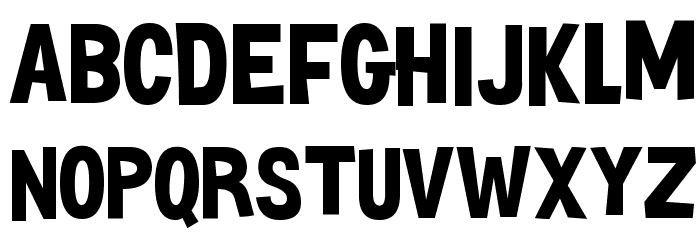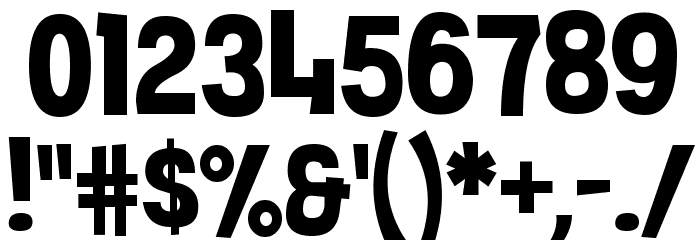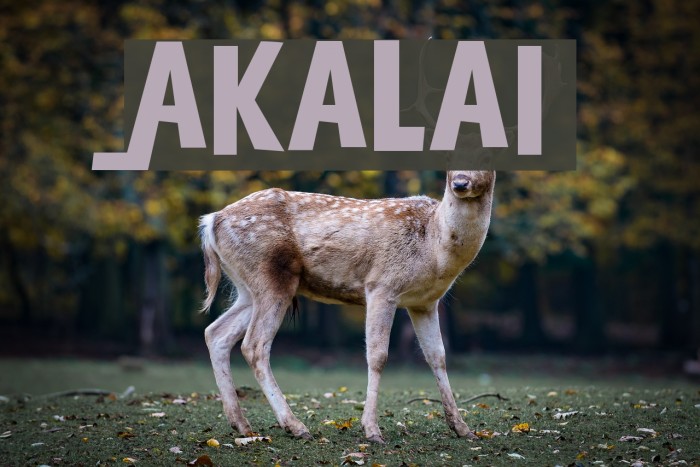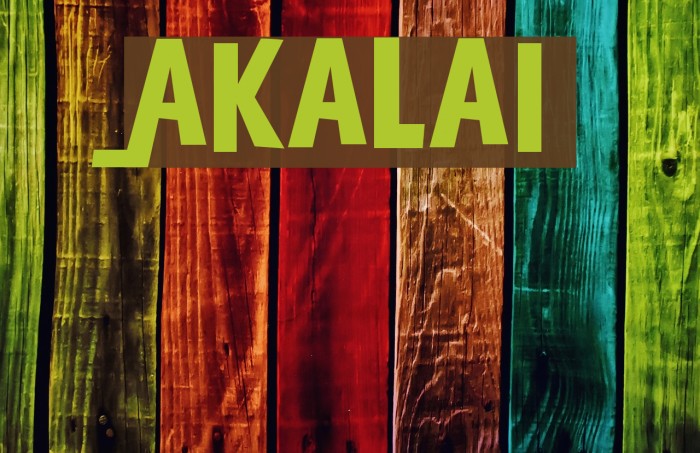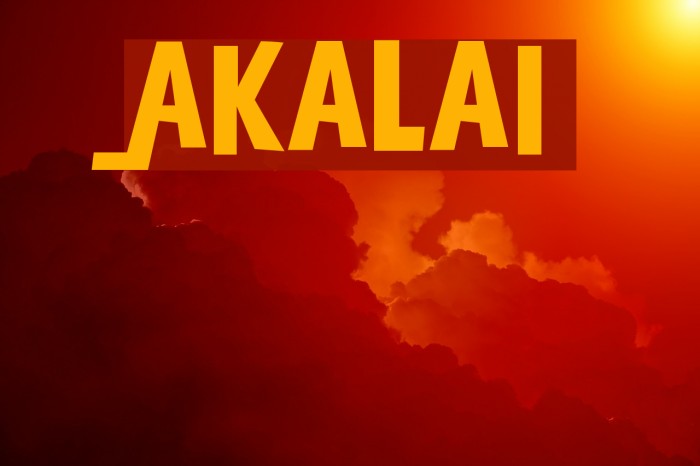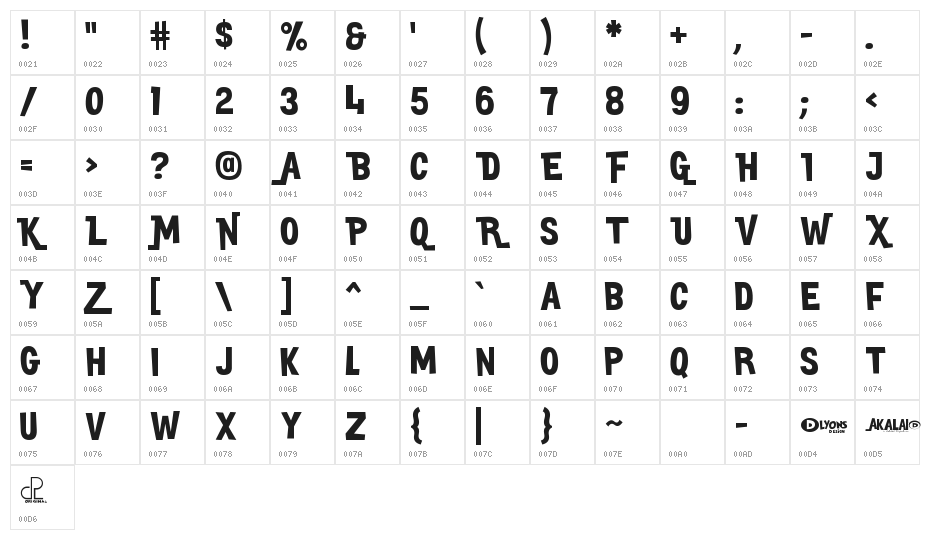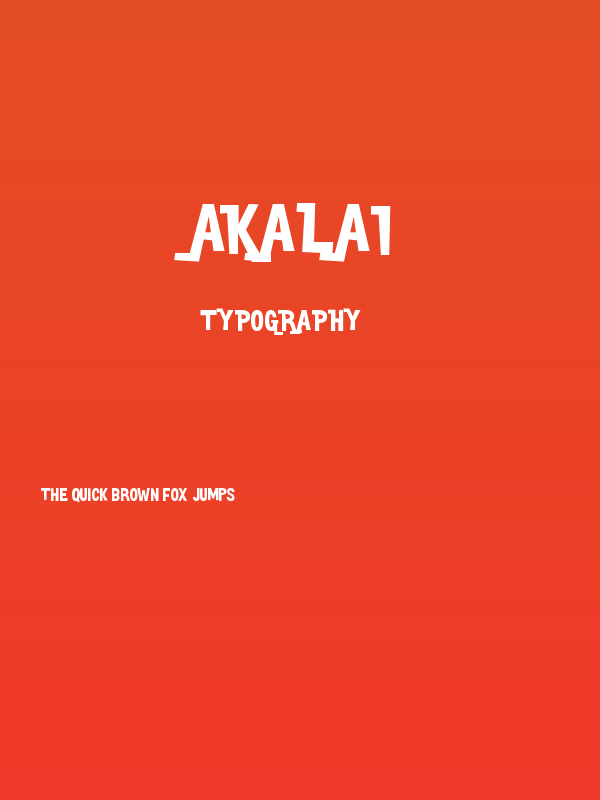
Akalai Font
This font features bold, blocky characters with a distinct, playful style. The uppercase letters are robust and have a slightly condensed appearance, giving them a strong presence. The lowercase letters maintain the same boldness, ensuring consistency throughout. Numbers are equally bold, making them highly legible. Special characters are designed to match the overall bold aesthetic, ensuring they stand out effectively. The font's style is reminiscent of vintage signage, with a modern twist that makes it suitable for a variety of applications. Its boldness and unique character shapes make it ideal for attention-grabbing headlines and impactful designs.
A bold, blocky font with a playful, vintage-inspired style.
- Proposed Projects: Ideal for posters, headlines, branding, and any design requiring a strong visual impact.
- Overall Style: Vintage, Modern